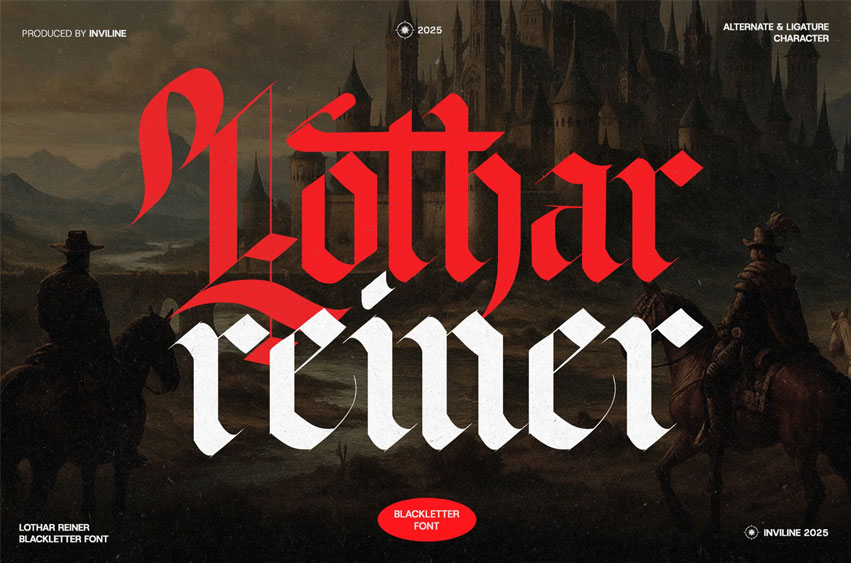
Lothar Einer Font is a blackletter display font inspired by traditional Gothic letterforms. The preview presents strong vertical strokes, sharp terminals, and dramatic contrast, giving the typeface a historic and authoritative visual presence. Its letter structure reflects classic blackletter construction with a modern, clean finish.
In the preview, the font is shown used for branding-style layouts, logotypes, posters, covers, banners, and packaging designs. The large-scale typography highlights its impact when used as primary display text, making it suitable for projects that require a bold and expressive typographic voice.
The font includes uppercase and lowercase characters, numerals, punctuation, and alternate forms as shown in the preview. Lothar Einer is delivered in common font file formats, making it easy to install and use across design applications.